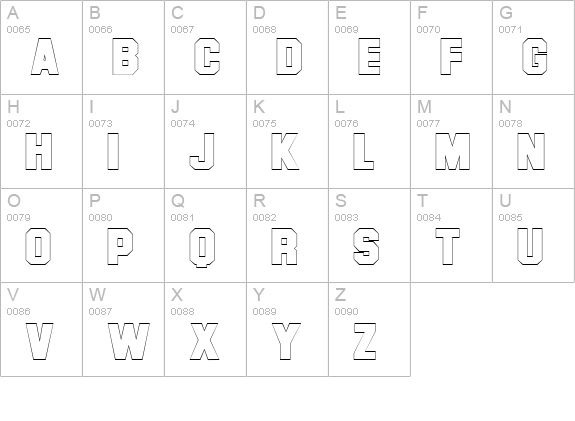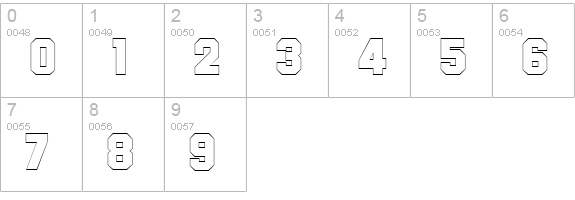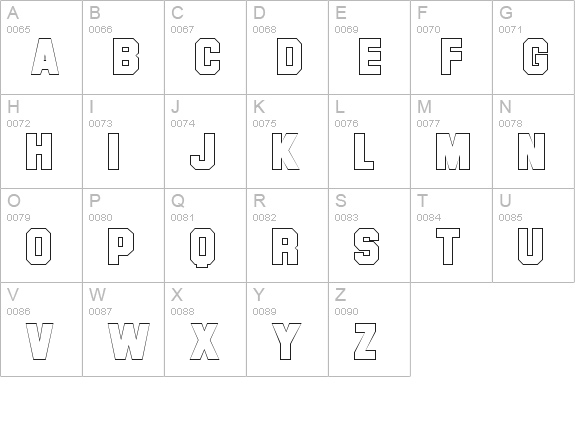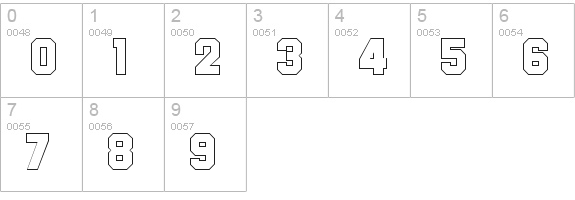
Letter Sweater Sans Open SSi Normal is the standard, neutral variant in the Letter typeface family \xE2\x80\x94 well suited to general body text, paragraphs, and standard typographic work.
Letter Sweater Sans Open SSi Normal is a versatile and stylish font that exudes a timeless charm. With its clean lines and bold letterforms, this typeface is perfect for creating eye-catching designs for a wide range of projects. Whether you are designing a logo, a poster, or a website, Letter Sweater Sans Open SSi Normal will make your text stand out. What makes this font even more appealing is that it is available for free download at FontsMarket.com. This means that you can use it in your personal and commercial projects without having to worry about any licensing fees. It's a great opportunity to add a touch of sophistication to your designs without breaking the bank. The Letter Sweater Sans Open SSi Normal font is incredibly legible, making it ideal for both large and small text sizes. Its generous spacing and clear letterforms ensure that your message is easily readable, even from a distance. This font also offers a wide range of characters, including uppercase and lowercase letters, numbers, punctuation marks, and special symbols. With such versatility, you can use it to create anything from elegant headlines to captivating body text. Whether you're a graphic designer, a web developer, or a hobbyist looking to add a professional touch to your creations, Letter Sweater Sans Open SSi Normal is a font that will not disappoint. With its timeless appeal, this font will elevate your designs and make them truly unforgettable. So why wait? Head over to FontsMarket.com today and download Letter Sweater Sans Open SSi Normal for free. Unleash your creativity and bring your designs to life with this stunning font.